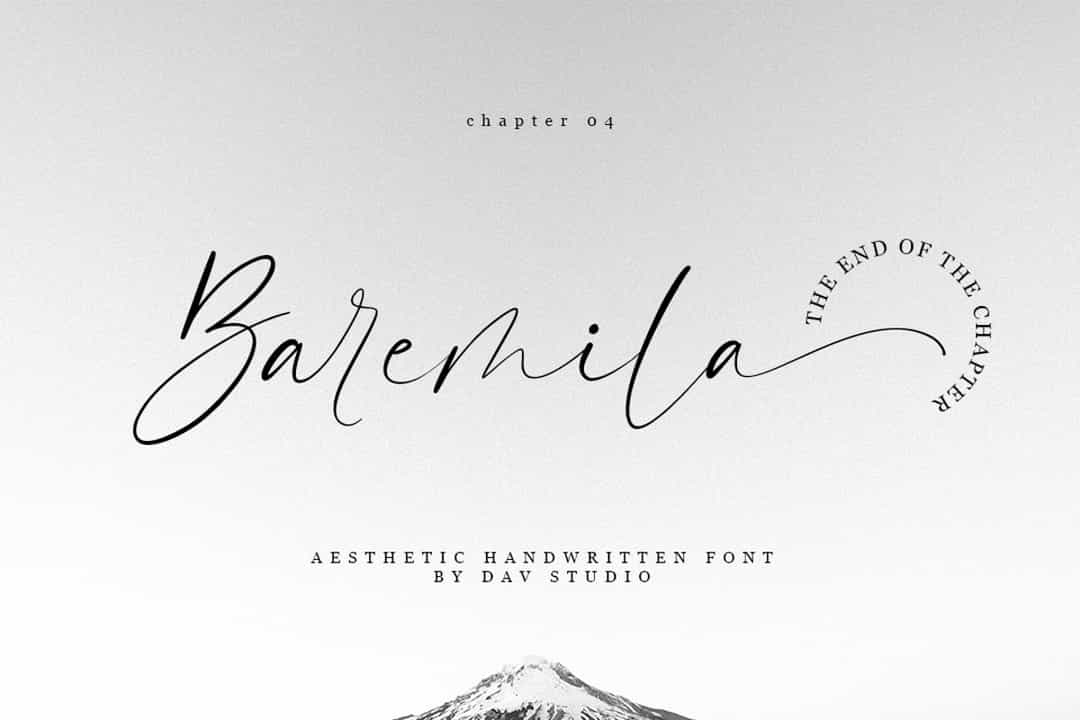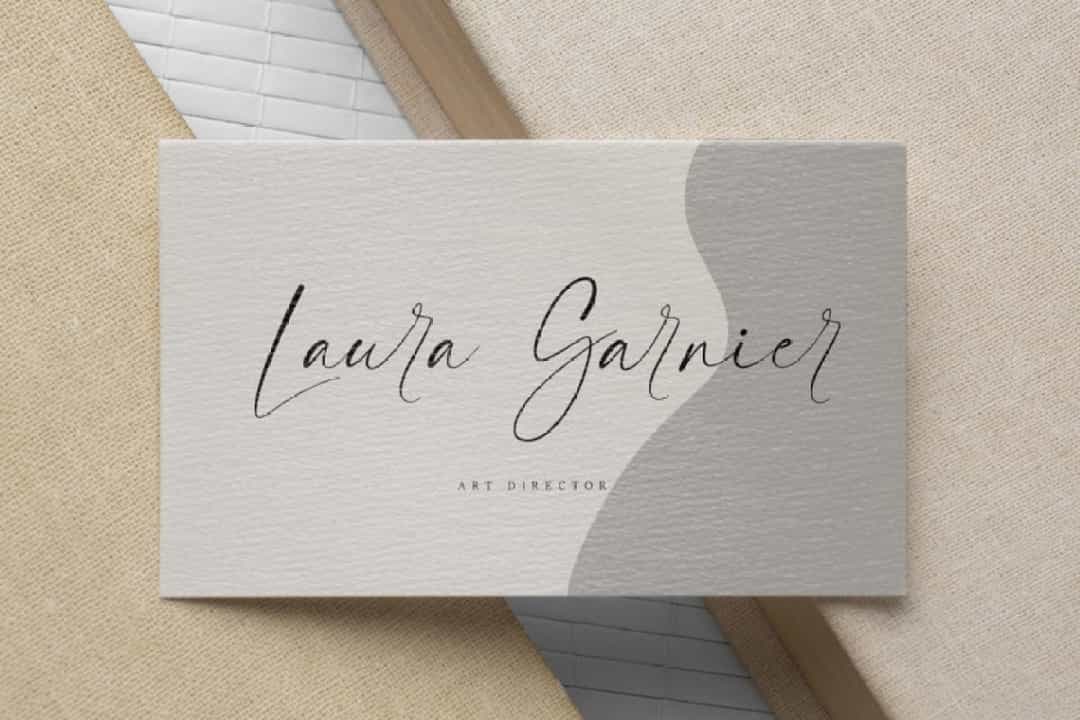
Baremila can be described as being fine, beautiful and sensitive cursive writing style font. This is a font that complements wedding invitations, thank you cards, and quotes, greeting cards, business cards, logos, and any design with a handwritten text. In addition, it is PUA encoded which gives it easy access to all its glyphs, swashes and characters.